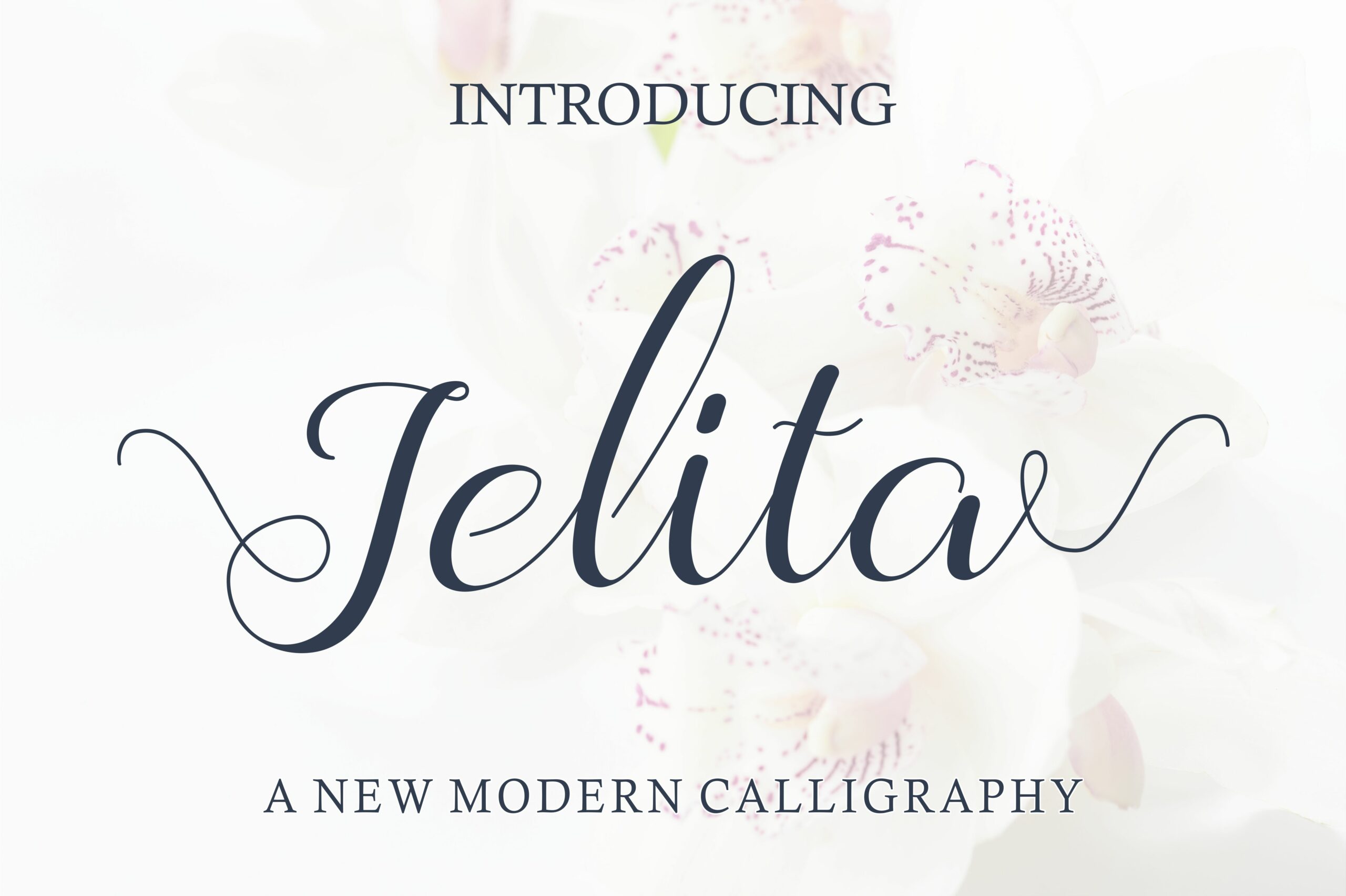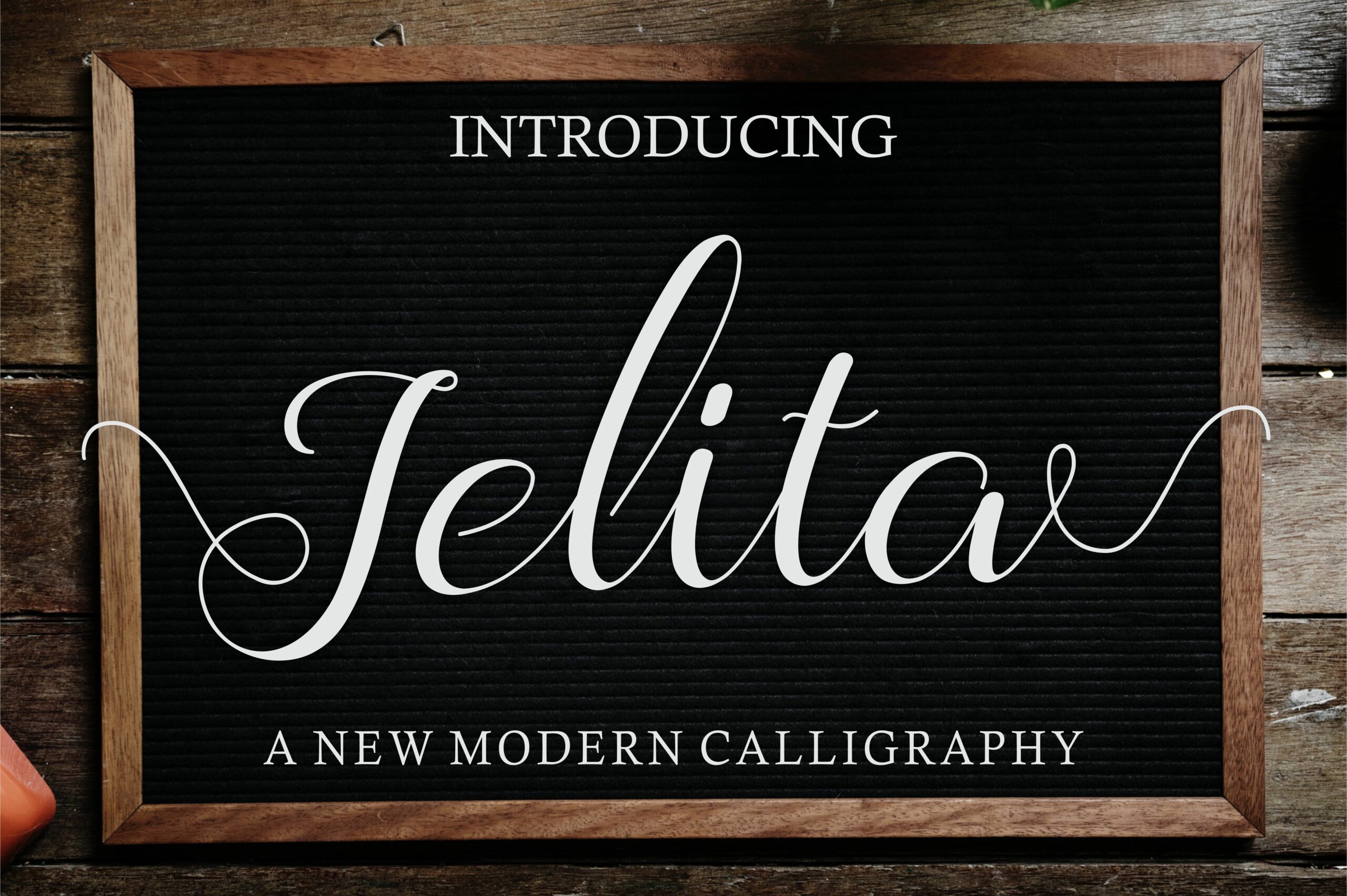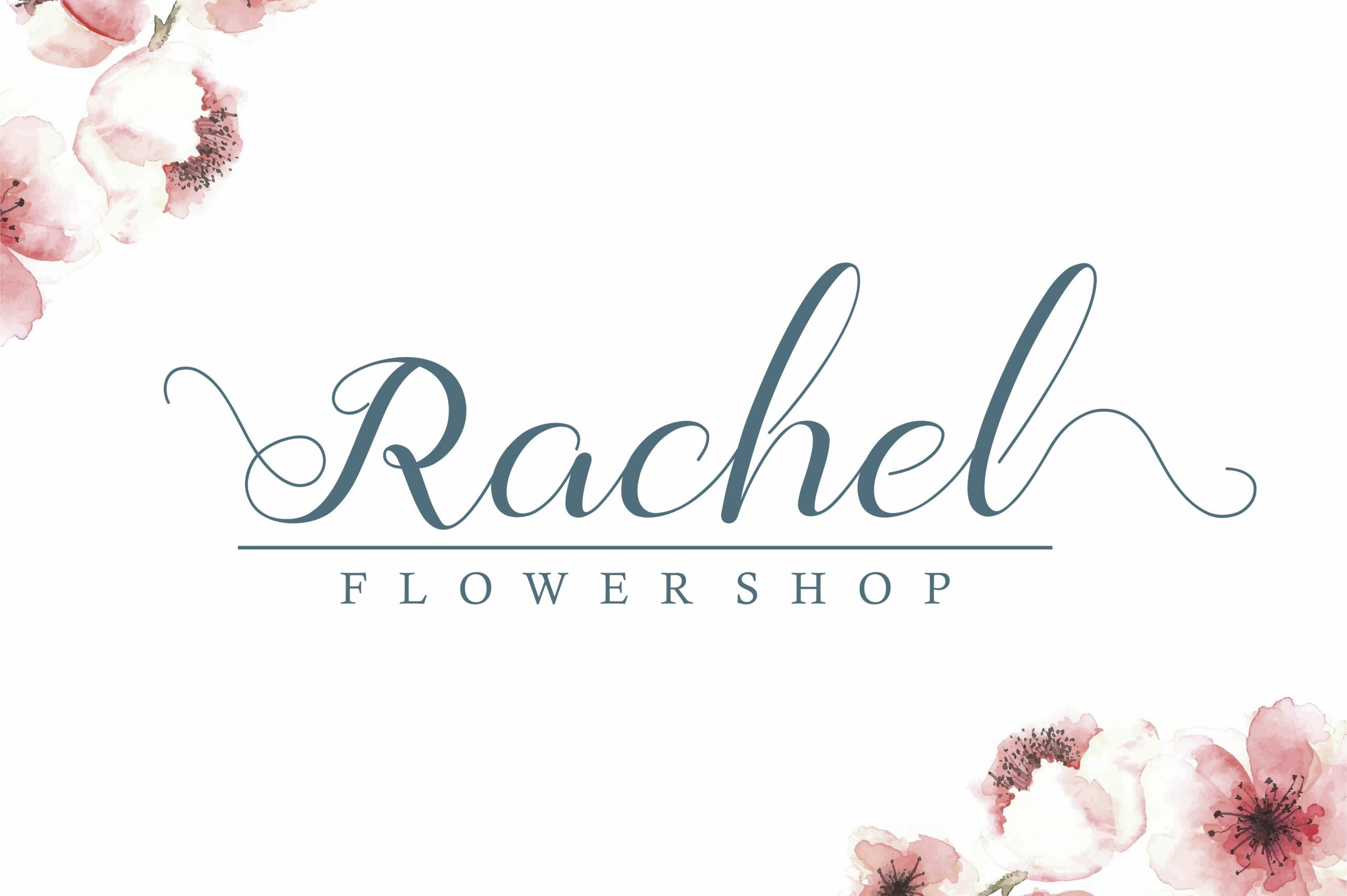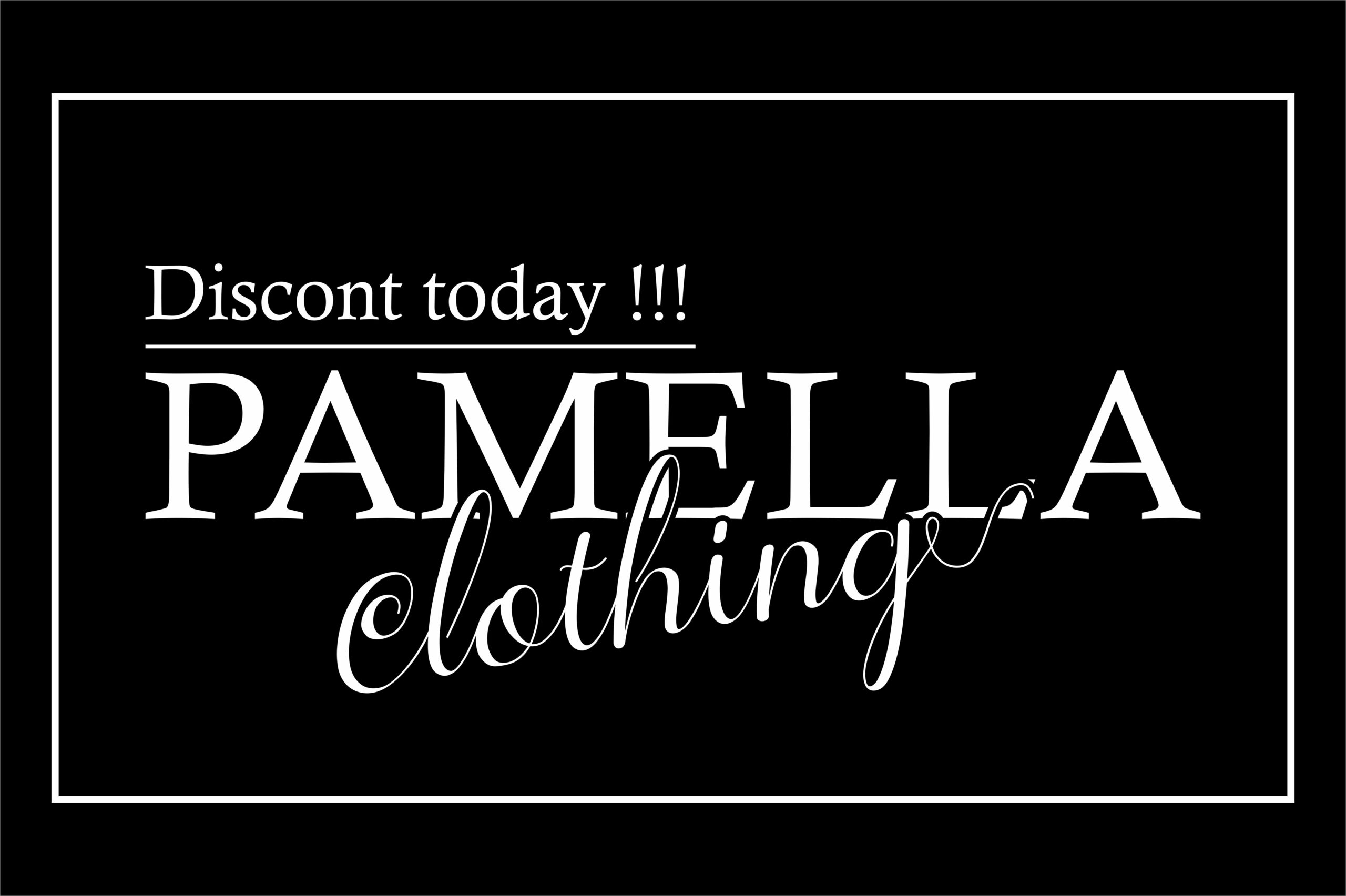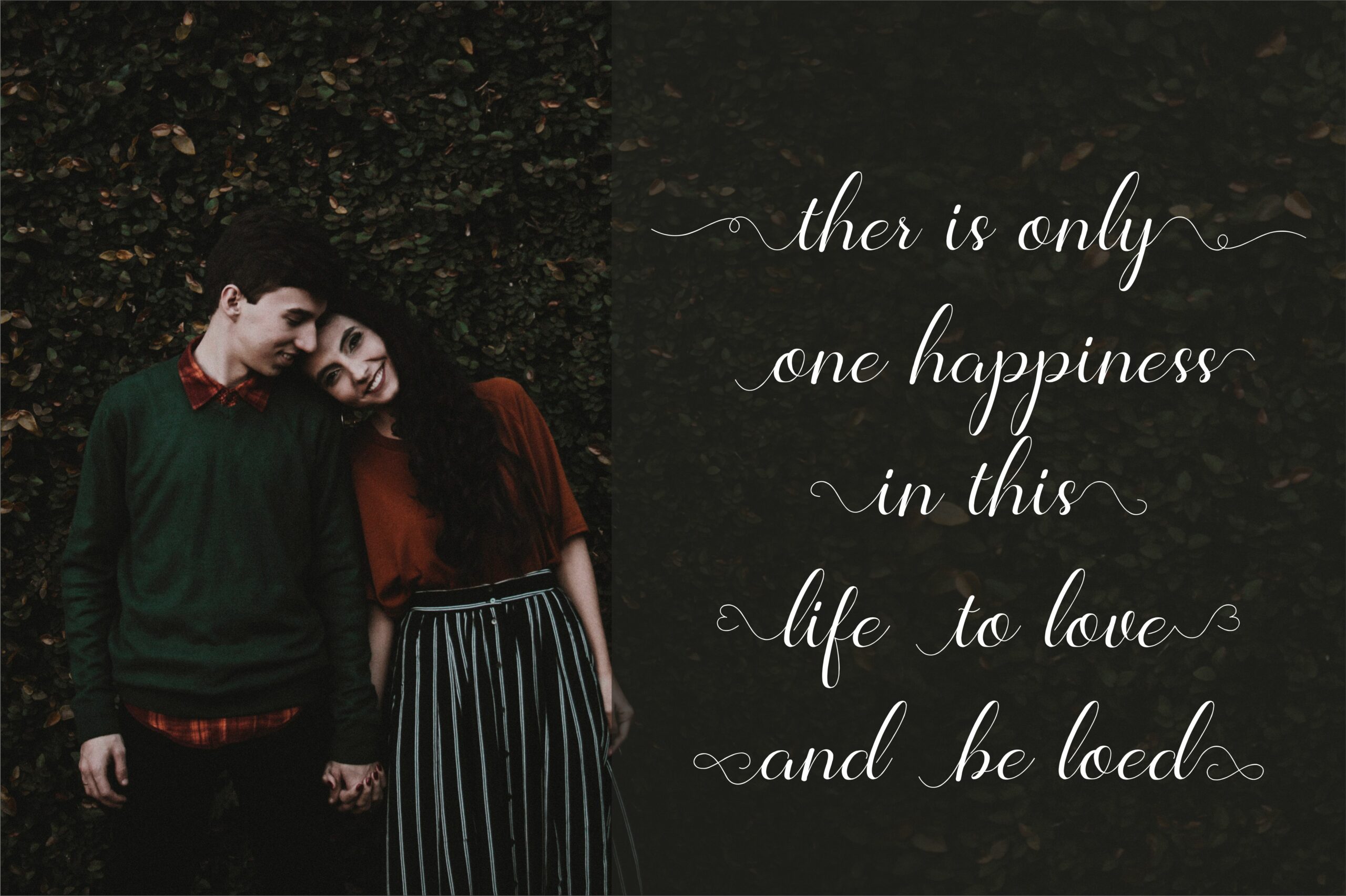
Jelita Font
About Jelita Font
Jelita is a connecting script with a dancing baseline, designed to convey elegance and style. It is clean, feminine and friendly. All designs will have a wonderful homemade touch with Jelita, a gorgeous script font.